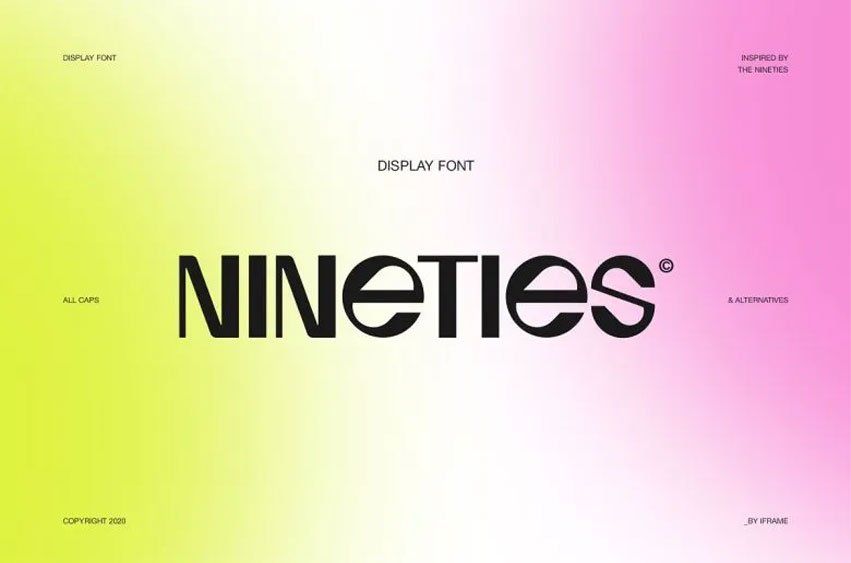
Nineties Display Font
Nineties Display Font is a display font family based on the 90s – the best decade, in the eyes of the creators. Sophisticated and classy fonts that are popular in the contemporary world.